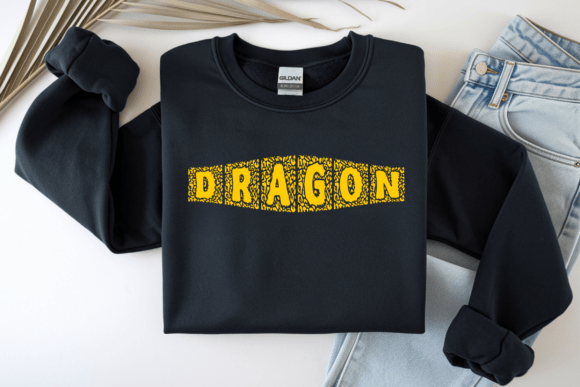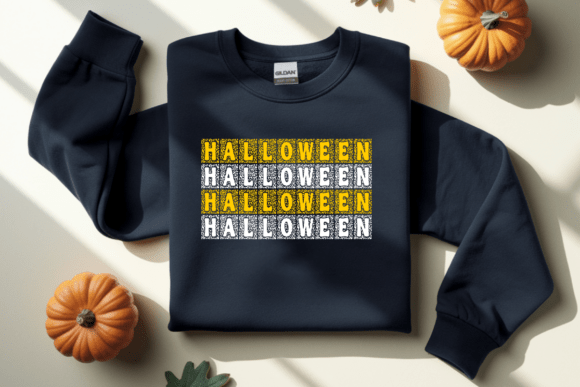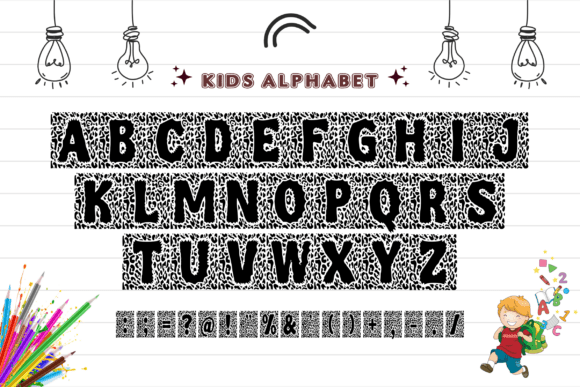
Unleash Your Inner Artist: Discover Animalcomics Regular Font
Do you remember the rush of excitement when you first discovered a font that spoke to your creative soul? For many designers, it’s a moment that sparks a new project, a fresh idea, or a bold statement. Today, we’re excited to introduce you to Animalcomics Regular Font, a game-changing decorative font that’s about to take your designs to the next level.
This unique font features a stunning leopard pattern that brings a touch of wildness to any project. Whether you’re working on a comic, animation, or sublimation design, Animalcomics Regular Font adds a memorable accent that’s hard to ignore. With its versatility and eye-catching design, this font is a valuable asset for any designer looking to make a statement and stand out from the crowd.
- Unique Characteristics: Features a hand-drawn, cartoon-like style with a playful and whimsical feel
Designer Review: Animalcomics Regular Font
Overall, I found the Animalcomics Regular Font to be a fun and quirky addition to any design project. ✨ The font’s unique animal-inspired characters add a touch of whimsy and playfulness to text, making it perfect for children’s books, magazines, or any other project where a lighthearted tone is desired. ✨ The font’s clean lines and simple shapes also make it easy to read and understand.
However, there are a few limitations to consider: ⚠️ The font’s animal characters can be distracting in large blocks of text, making it best suited for headlines or short paragraphs. Additionally, the font may not be suitable for formal or professional projects, as its playful nature may come across as unprofessional. ⚠️
Here are some key features of the Animalcomics Regular Font:
- Unique animal-inspired characters
- Fun and playful tone
- Easy to read and understand
- Best suited for children’s projects or informal texts
Overall, I would recommend the Animalcomics Regular Font for designers looking to add a touch of whimsy and fun to their projects. While it may have some limitations, its unique characters and playful tone make it a valuable addition to any design library.
The Animalcomics Regular Font is ideal for:
- Comic book art
- Graphic novels